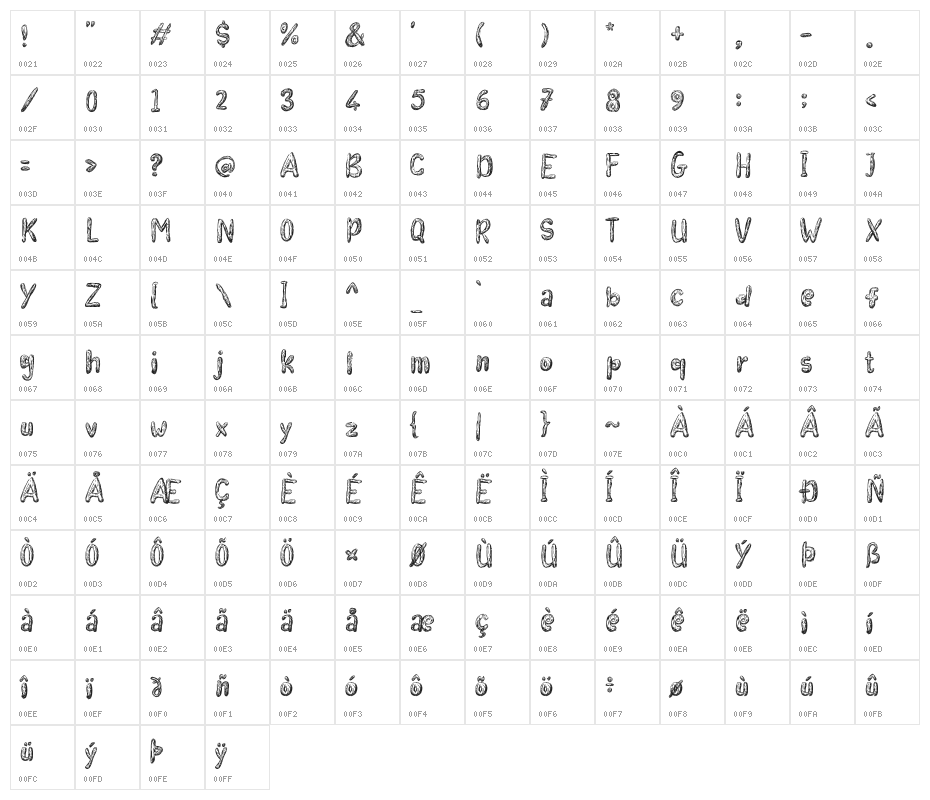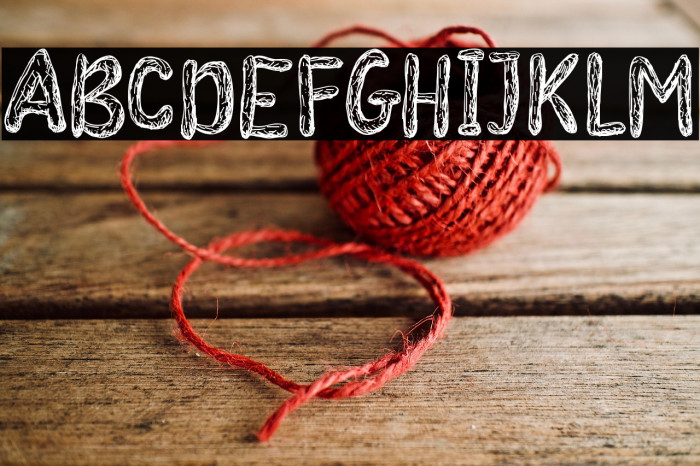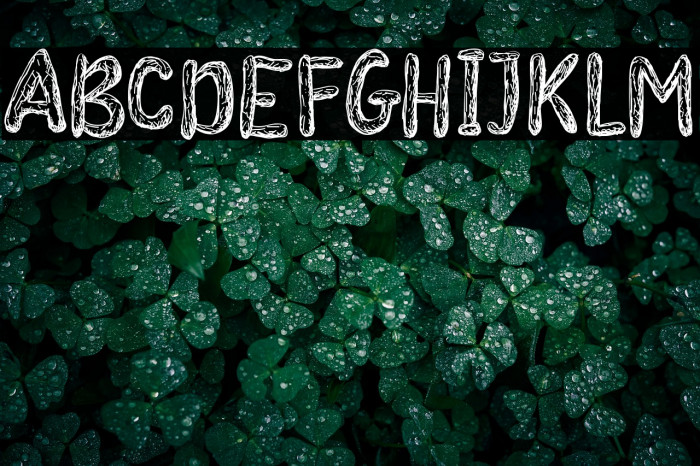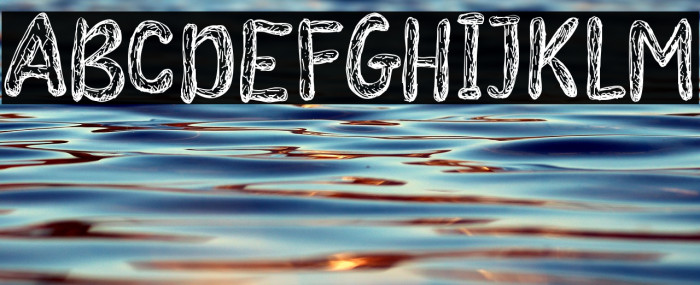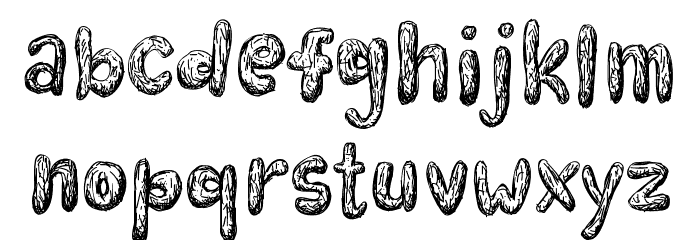
KidStories Font
This playful and whimsical font features a hand-drawn, textured appearance that mimics the look of wood or bark. Each character is uniquely crafted with uneven strokes and a slightly rough edge, giving it a natural and organic feel. The font maintains a consistent thickness throughout, with rounded edges that add to its friendly and approachable style. It is highly decorative, making it ideal for projects that require a touch of creativity and fun. The characters are well-spaced, ensuring readability while maintaining the font's artistic flair.
| Proposed Projects | Ideal for children's books, playful branding, posters, and creative invitations. |